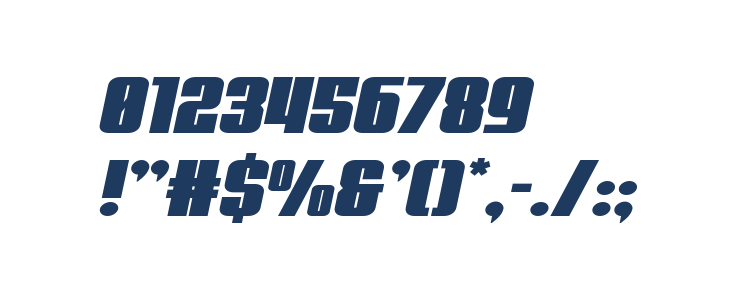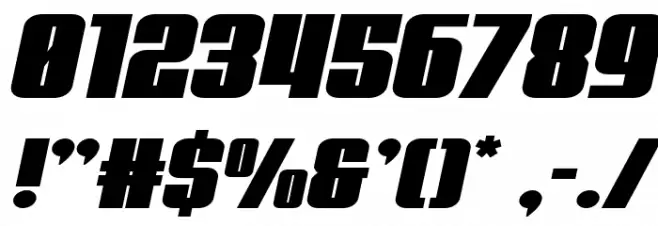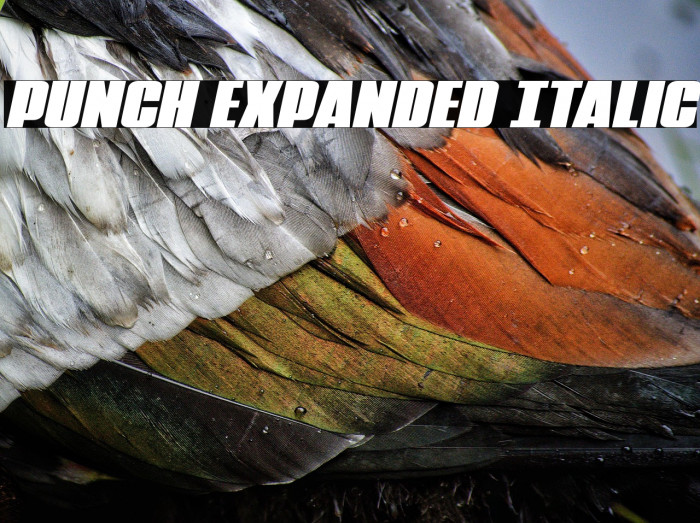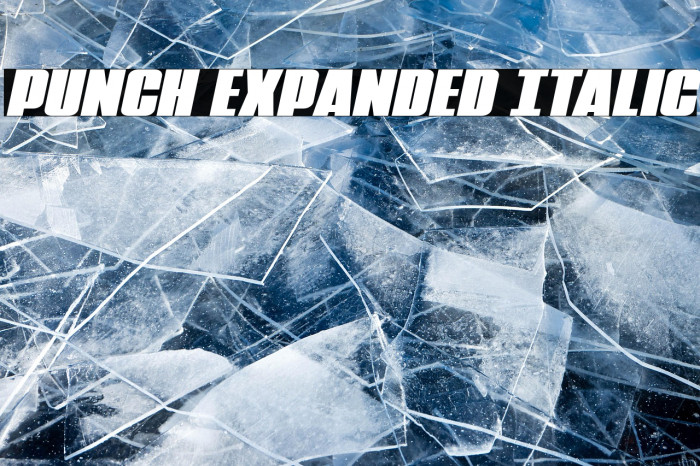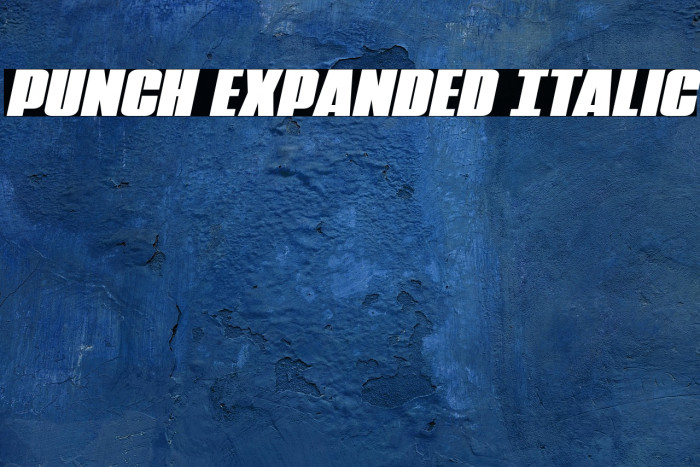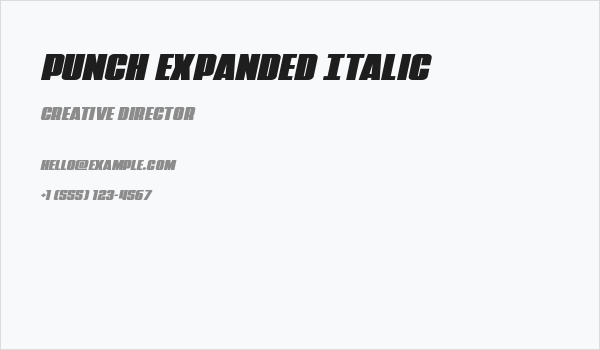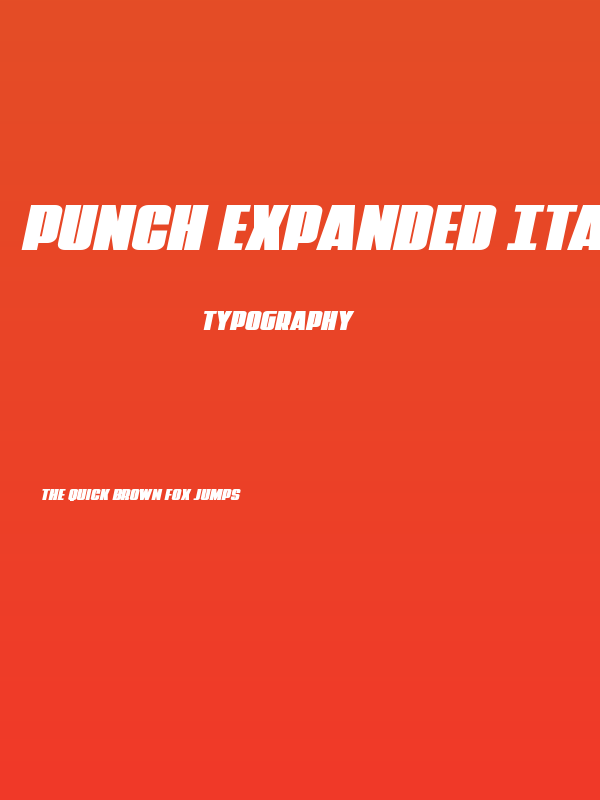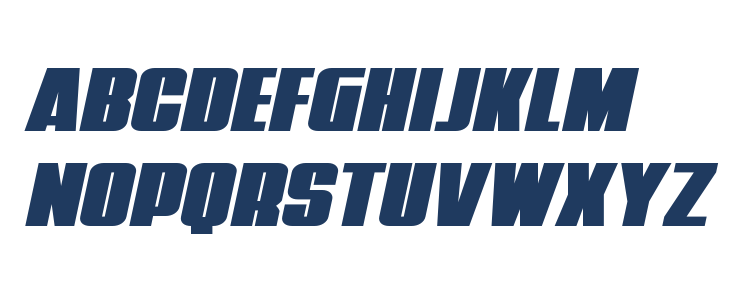
Punch Expanded Italic Font
Punch Expanded Italic Description
This font features a bold and dynamic style with an expanded width and italic slant, giving it a strong and impactful presence. The characters are robust and wide, with a slight forward tilt that adds a sense of motion and energy. The strokes are thick and consistent, providing a high level of contrast that enhances readability and visual impact. This font is particularly suited for attention-grabbing headlines and display purposes, where a strong and assertive typeface is required. The character spacing is tight, which contributes to its bold appearance, while the expanded width ensures that each letter stands out distinctly.
| Proposed Projects | Ideal for sports branding, posters, advertising campaigns, and any project requiring a bold statement. |